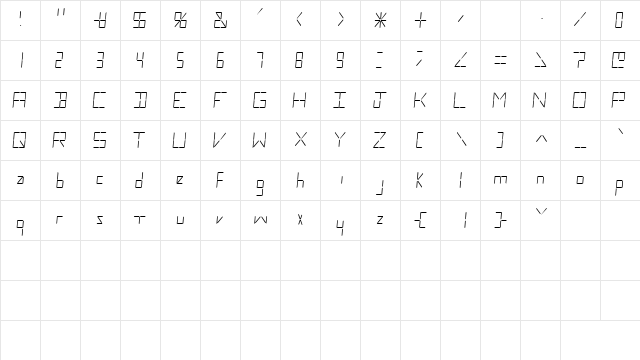
LCDDoubleSSK Regular
Design Context for LCDDoubleSSK Typeface
LCDDoubleSSK is a composed and adaptable typeface that performs quietly and consistently across a wide range of design contexts.